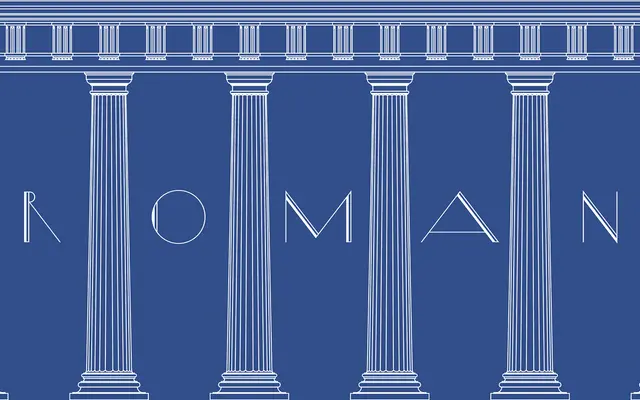
Diamond Ring specimen from Dharma Type
A geometric display face inspired by Art Deco Japanese packaging and poster design, built around a consistent diagonal stroke angle.
All diagonal strokes share an identical angle, producing a rhythmic uniformity that sets this typeface apart from looser Art Deco interpretations. The influence is specifically the Japanese cosmetic and promotional graphics of the late 19th to early 20th century, lending it a precision that feels more structured than period pastiche. The name references the shimmering quality the uniform diagonals create, evoking light caught on a faceted stone.
A decorative display typeface rooted in Art Deco geometry, distinguished by uniform diagonal stroke angles drawn from Japanese cosmetic and poster design of the late 19th to early 20th century.